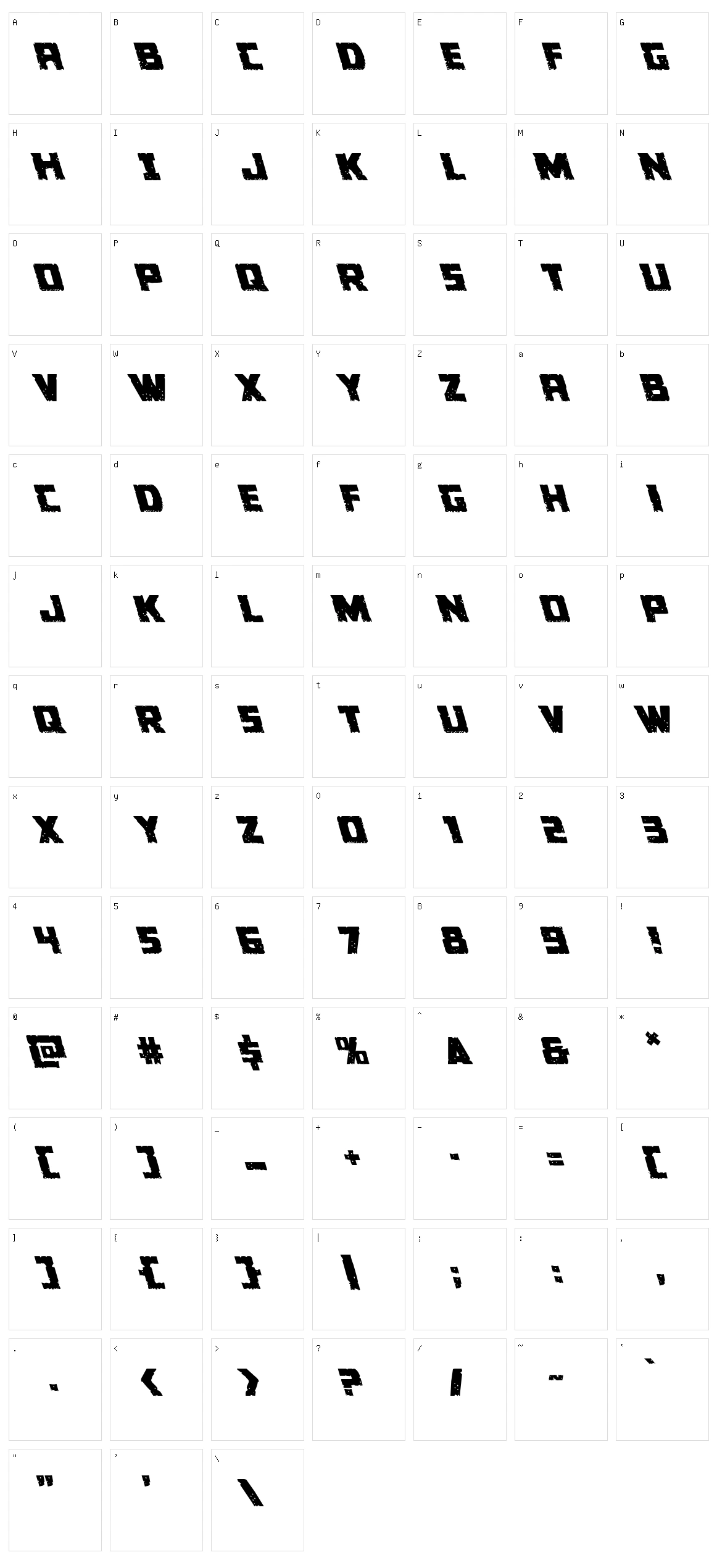
The free font Colossus is carefully designed by Iconian Fonts, showcasing a thoughtful balance of creativity and usability and falls under the Eroded font style. When you download the ZIP file, it contains only 900.27 KB of font files, making it lightweight and quick to download. Please review the license details below to understand permitted usage and distribution rights. If license information is not available, we recommend using this font for personal projects only or contacting the author directly for commercial usage permissions.
This font comes with the following 18 versions: Regular, Italic, Semi-Italic, Super-Italic, Leftalic, Condensed, Condensed Italic, Expanded, Expanded Italic, 3D, 3D Italic, Riddled, Riddled Italic, Jagged, Jagged Italic, Rotated, Rotalic and Title.